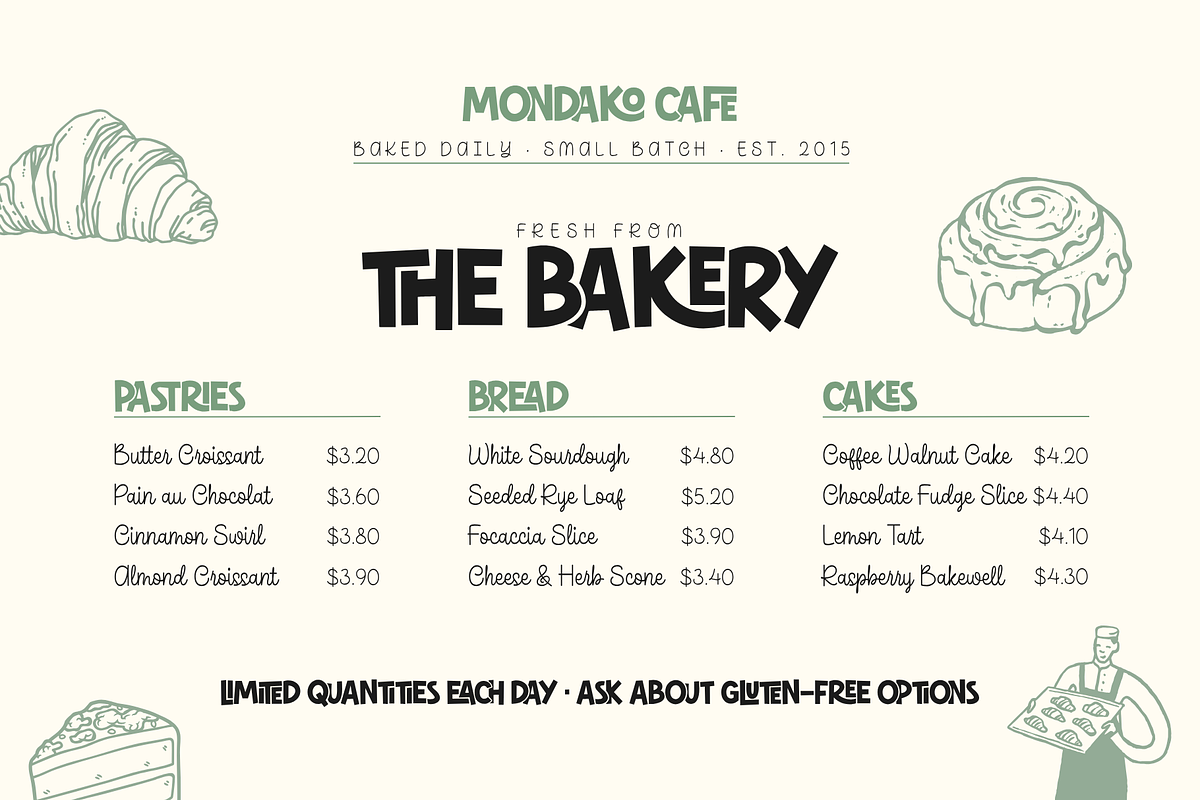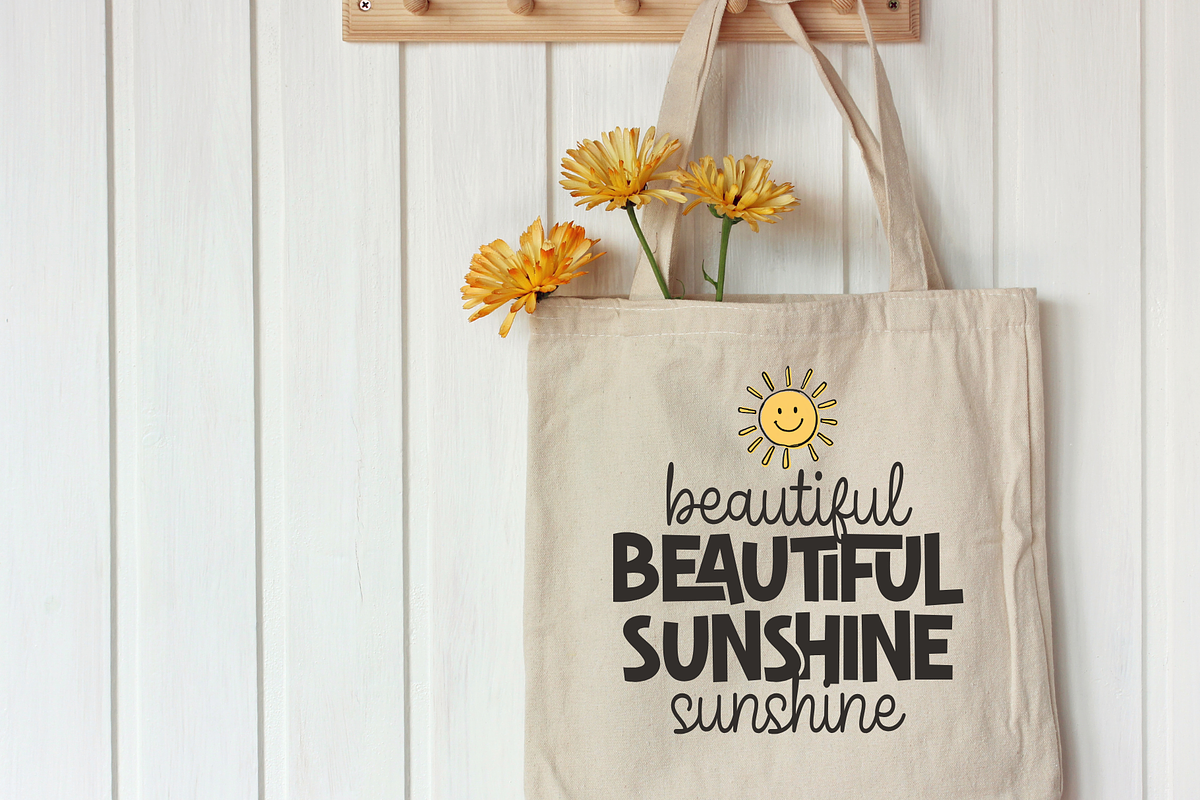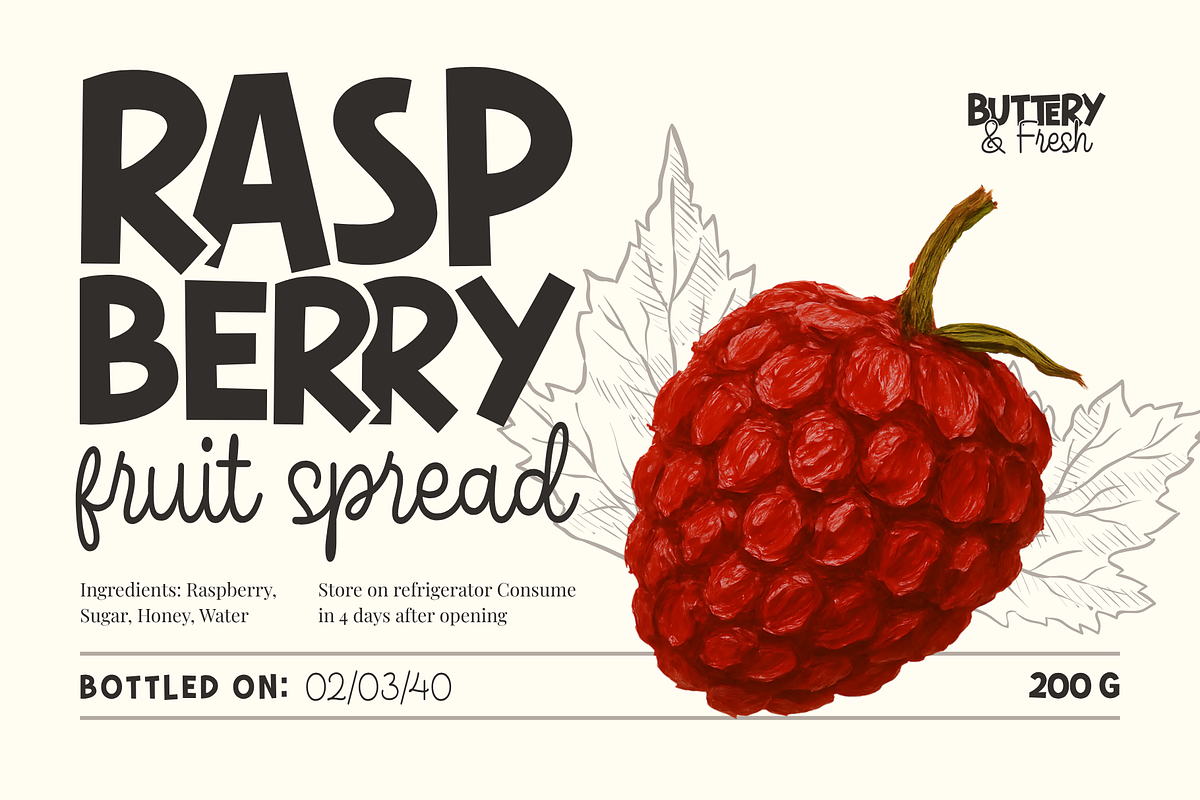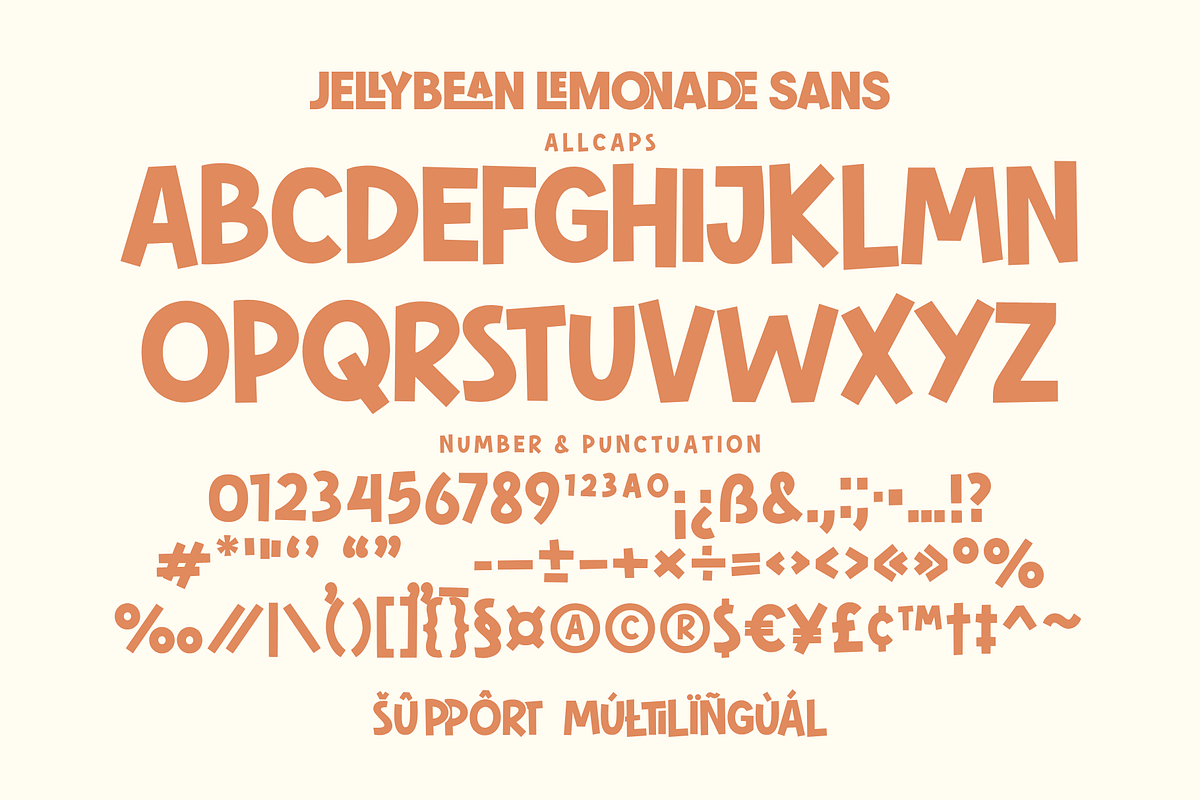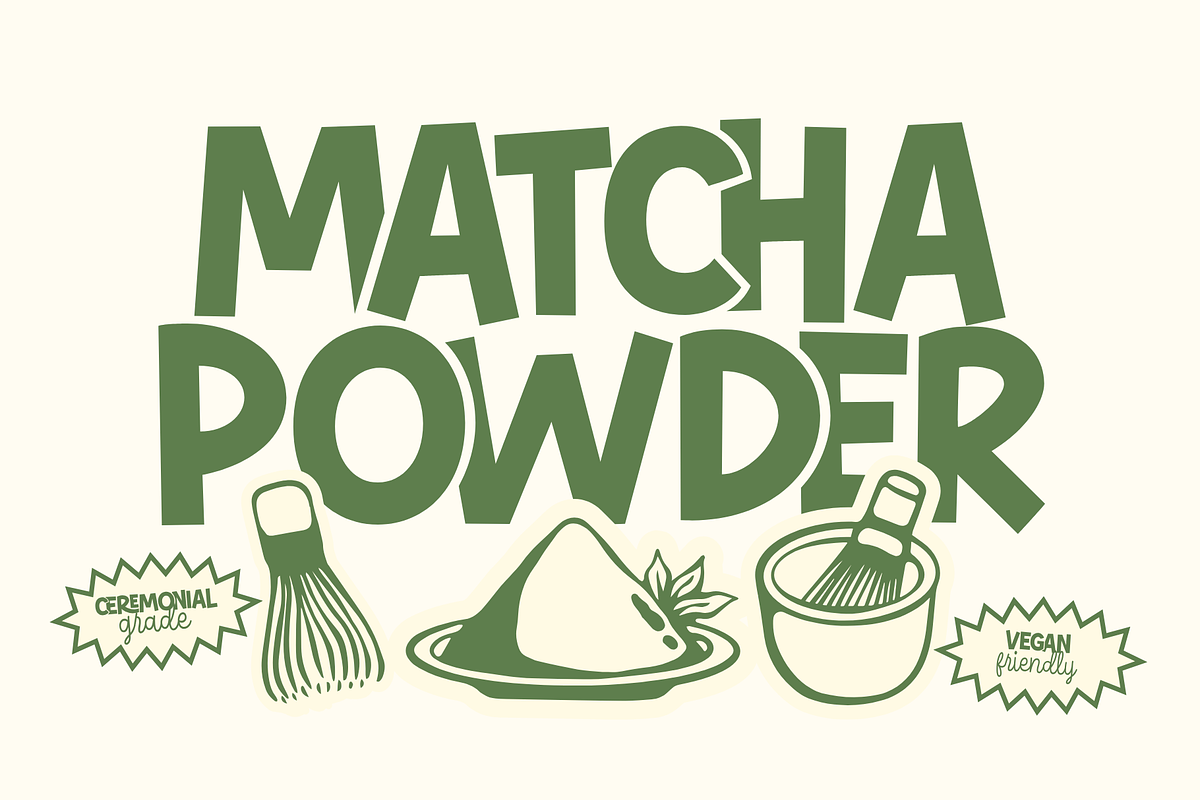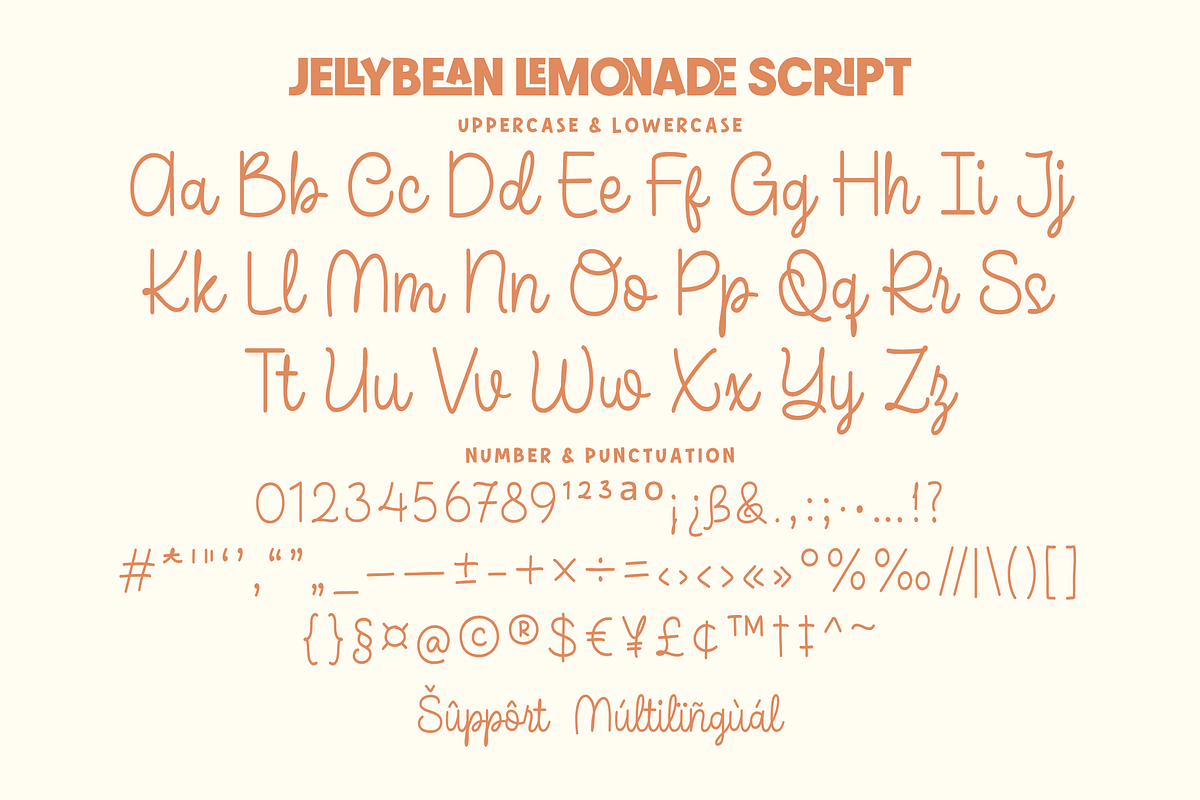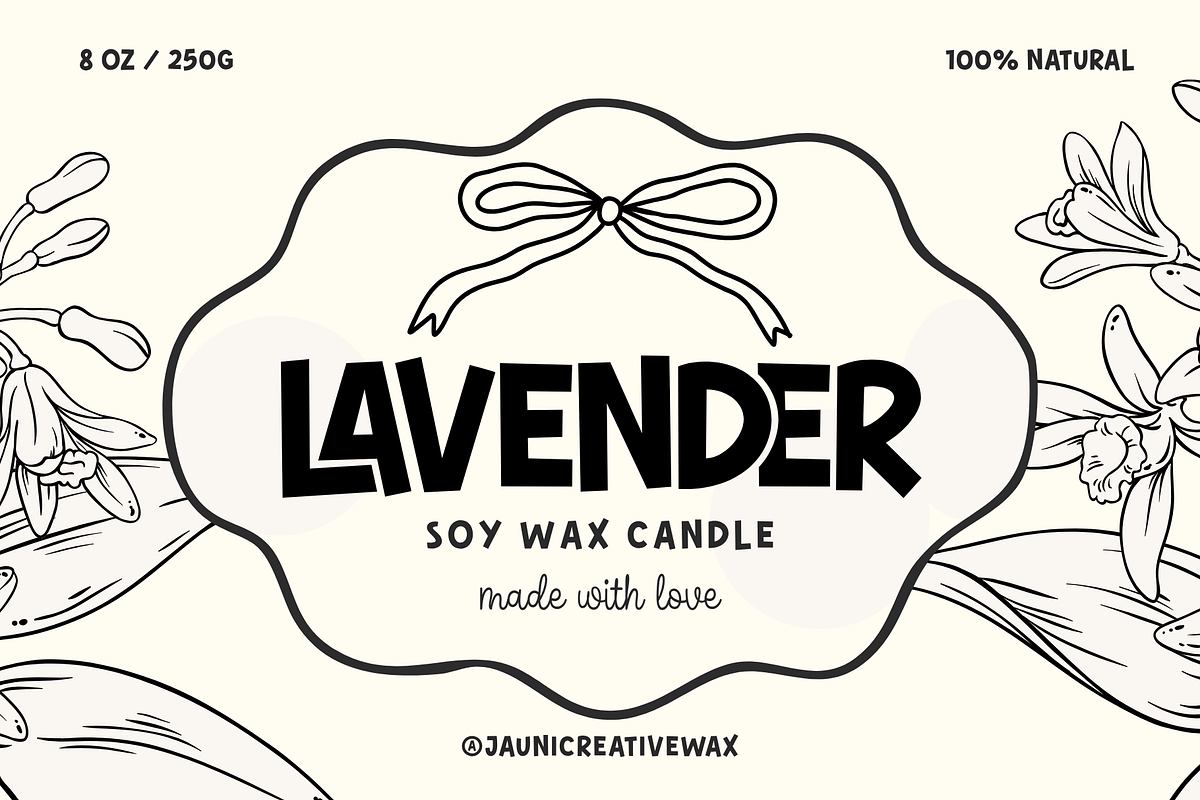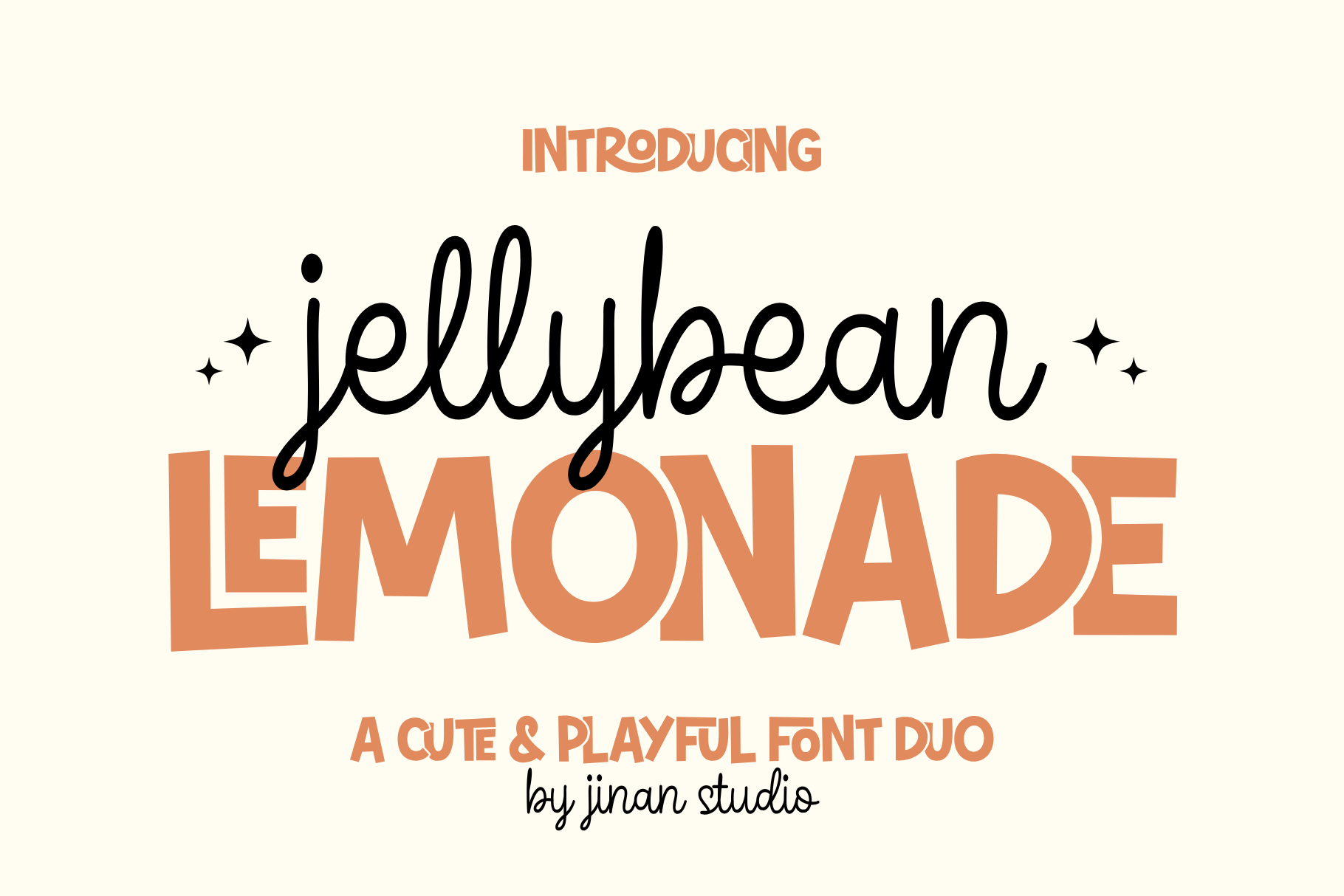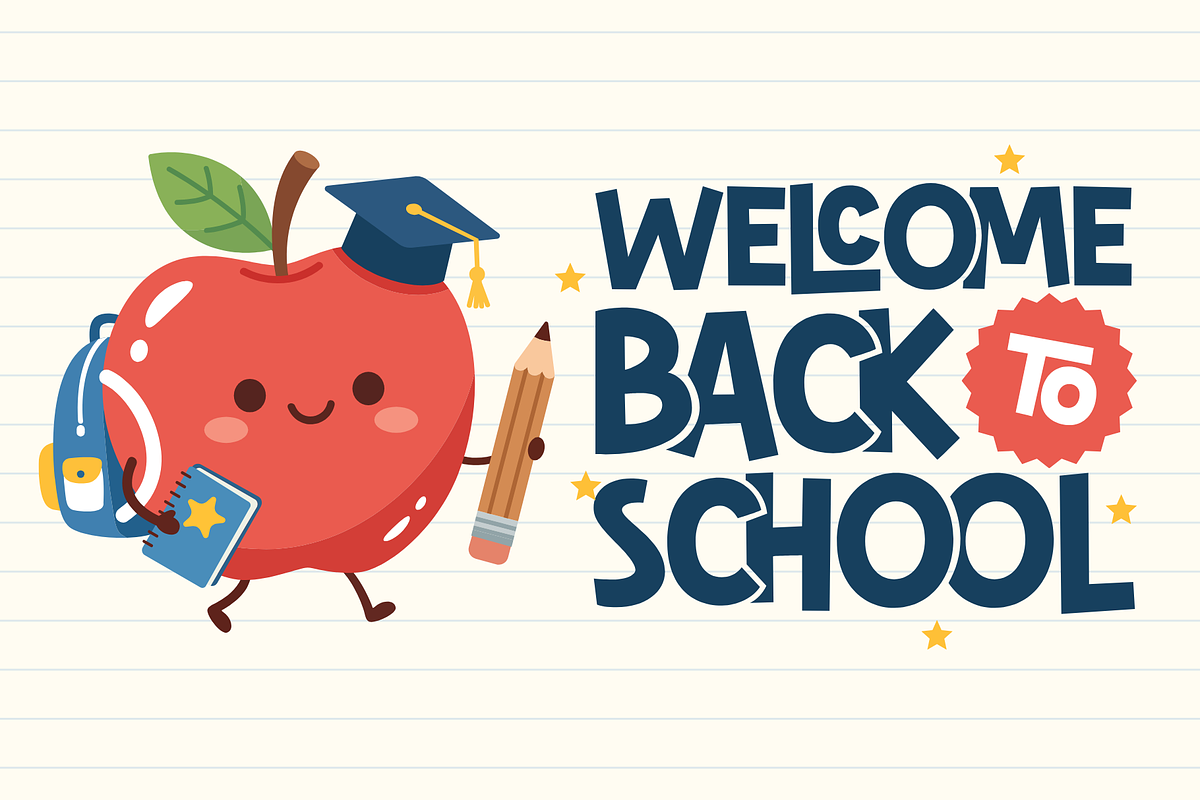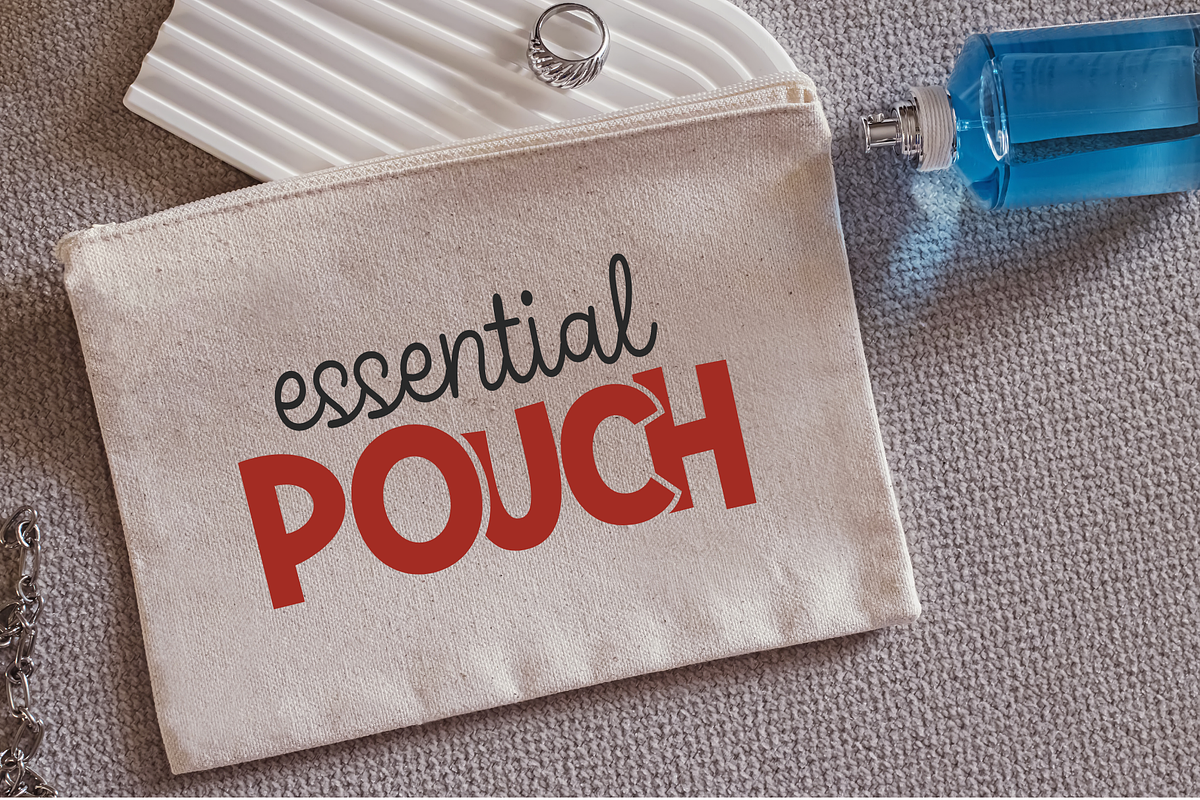
Jellybean Lemonade Font Duo
Meet Jellybean Lemonade, a cute and playful font duo that combines a bold, quirky display font with a charming handwritten script. Full of cheerful personality, organic curves, and fun retro-inspired character, this versatile duo is perfect for adding a sweet and youthful touch to your designs. Ideal for branding, packaging, logos, apparel, invitations, posters, social media graphics, children’s products, café designs, and creative headlines. Jellybean Lemonade works beautifully for projects that need a warm, fun, handmade, and eye-catching aesthetic.
A set of uppercase and lowercase glyphs (allcaps sans version)
Number, symbol, and punctuation
Ligatures will automatically replace the standard letter pairs whenever available, when using any OpenType capable software.